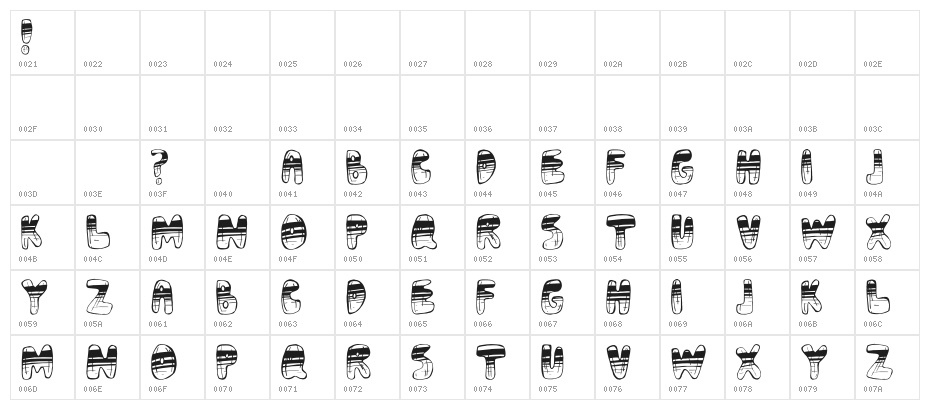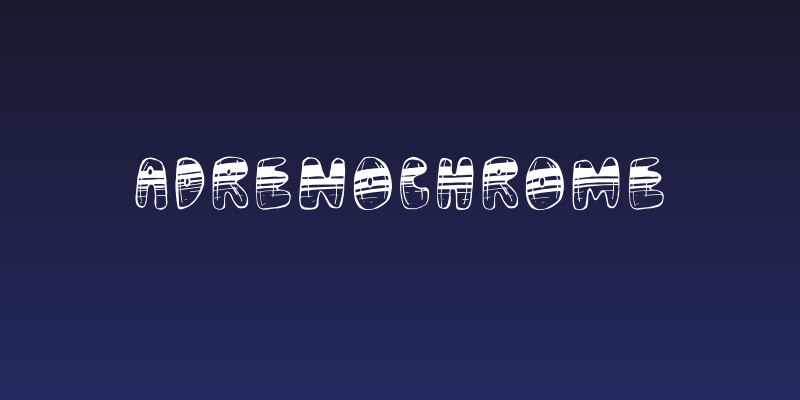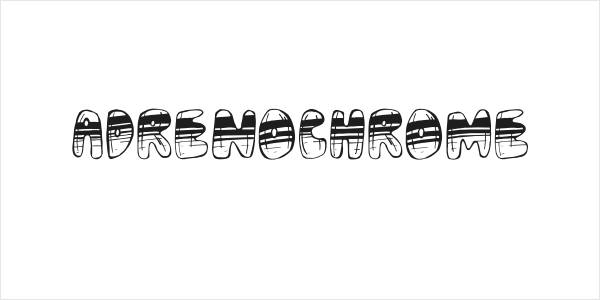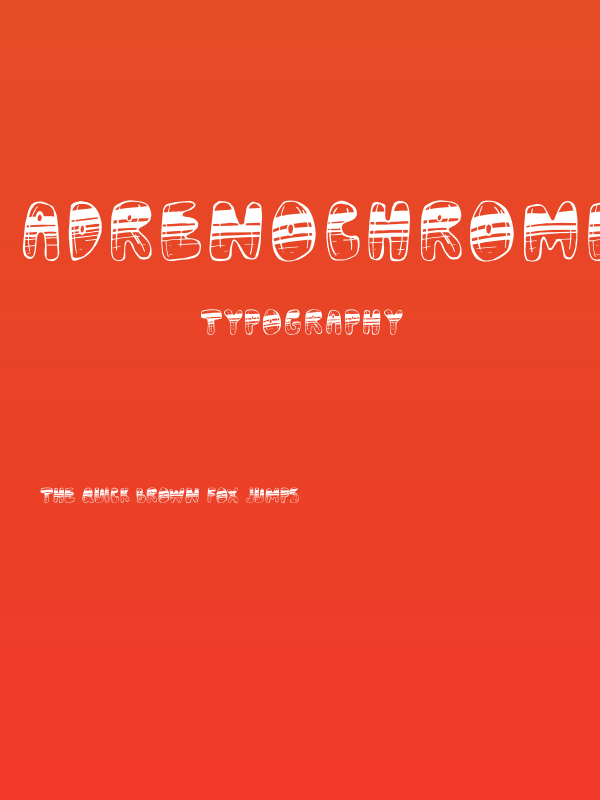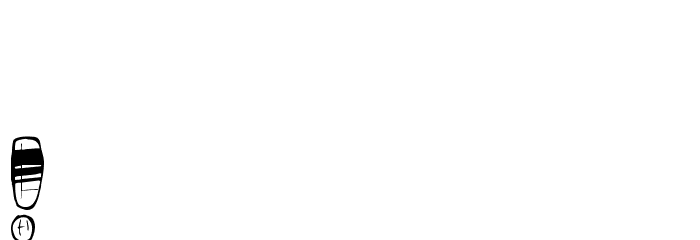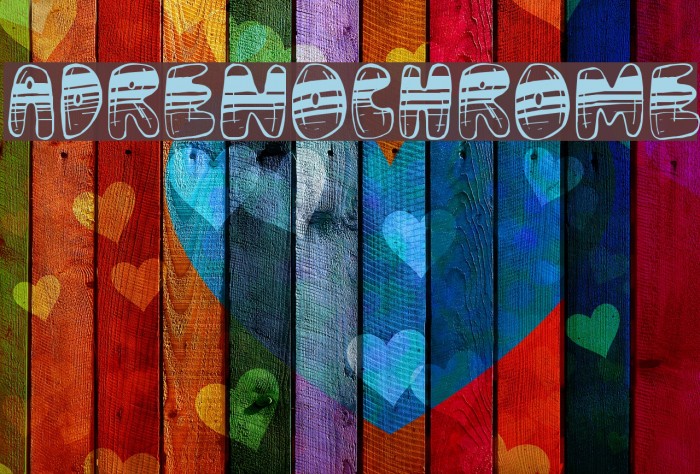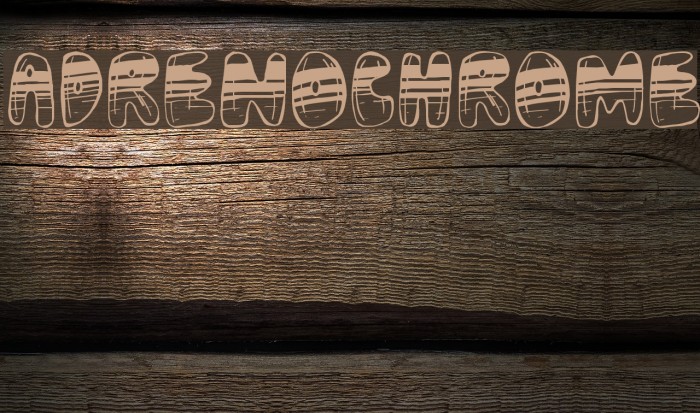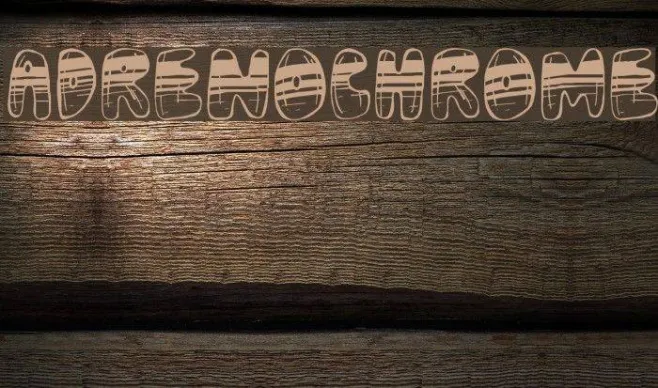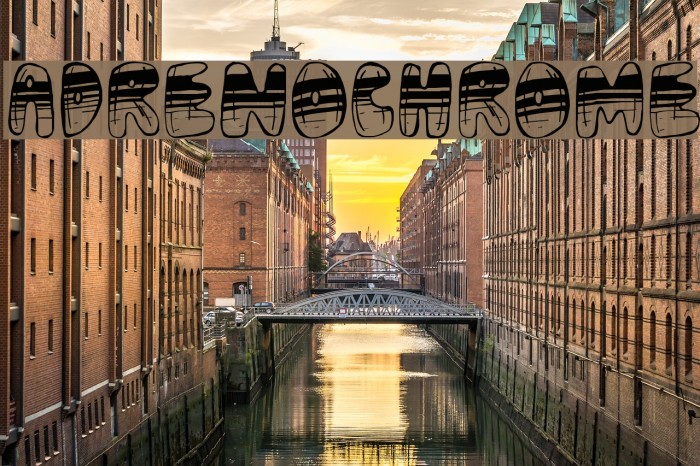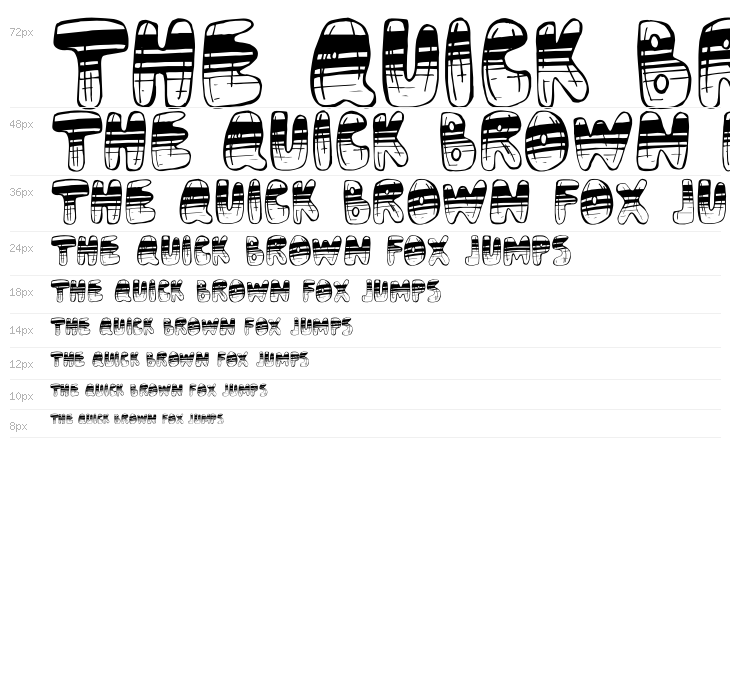
Adrenochrome Font
Adrenochrome Description
This font features a playful and artistic design with bold, rounded characters. Each letter is filled with unique patterns and lines, giving it a hand-drawn, whimsical appearance. The style is reminiscent of graffiti or street art, with a sense of movement and energy. The uppercase and lowercase letters maintain a consistent style, with the uppercase being slightly larger and more pronounced. The numbers and special characters follow the same design principles, ensuring a cohesive look across all elements. This font is ideal for projects that require a fun and creative touch.
| Proposed Projects | Ideal for children's books, posters, creative branding, and artistic projects. |